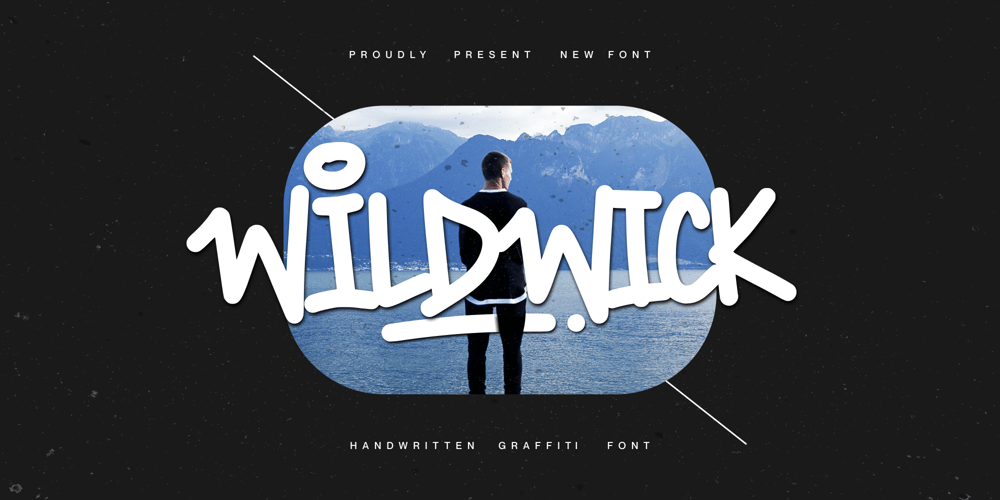
Wildwick
Wildwick font
Wildwick Font Family was designed by Fachrizal Yusuf and published by Allouse Studio. Wildwick contains 1 styles and family package options. Proudly Present, Wildwick Fat Handwritten Graffitti Font.Wildwick is perfect for any titles, logo, product packaging, branding project, megazine, social media, wedding, or just used to express words above the background.Wildwick also come with Multi-Lingual Support.Enjoy the font, feel free to comment or feedback, send me PM or email. Thank You!